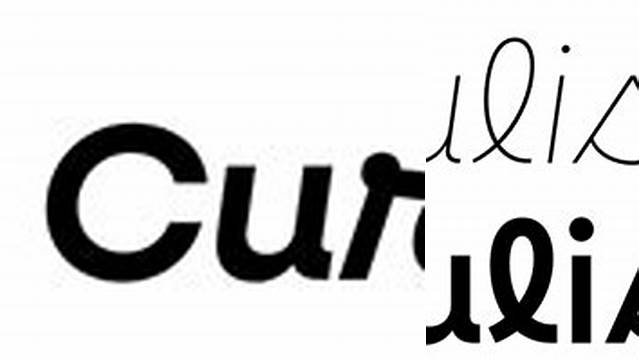
Hey guys! Ever stumbled upon a font that just clicks? Neulis Cursive Medium is one of those fonts. It's elegant, readable, and perfect for a ton of different projects. Finding the perfect font can sometimes feel like searching for a needle in a haystack, but fear not! This guide is all about helping you get your hands on Neulis Cursive Medium for free and how to make the most of it. Letâs dive in!
1. What is Neulis Cursive Medium Font?
So, what exactly is Neulis Cursive Medium? Well, itâs a beautifully designed font that falls into the cursive or script category. Think flowing lines, elegant curves, and a touch of sophistication. Unlike some other cursive fonts that can be overly elaborate and hard to read, Neulis Cursive Medium strikes a perfect balance. Itâs legible enough to use in body text while still retaining that distinctive cursive flair. This makes it super versatile for various applications, from branding and logos to invitations and digital designs. Itâs a font that adds a touch of class without being stuffy or pretentious. Imagine your name beautifully scripted on a wedding invitation or a logo that exudes elegance and professionalism â thatâs the power of Neulis Cursive Medium!
2. Key Features of Neulis Cursive Medium
Let's break down what makes Neulis Cursive Medium such a fantastic font choice. First off, its legibility is a major win. Some cursive fonts can be so swirly and intricate that they become a headache to read, especially in longer texts. But Neulis Cursive Medium maintains a clear, flowing structure thatâs easy on the eyes. Then thereâs its elegance. The curves and strokes are carefully crafted to give a sophisticated and polished look, perfect for projects where you want to convey a sense of quality and refinement. The âMediumâ weight of the font is also key. Itâs not too thin that it disappears, and itâs not too bold that it overwhelms. This balance makes it incredibly versatile for various applications. Plus, the font often includes a range of glyphs and ligatures, adding extra flair and customization options to your design work. These features combined make Neulis Cursive Medium a standout choice for designers and creatives alike.
9. Best Design Projects for Neulis Cursive Medium
So, what kind of projects really shine with Neulis Cursive Medium? This font is a versatile gem, but it truly excels in certain areas. If you're working on wedding invitations or other formal event stationery, Neulis Cursive Medium is a natural fit. Its elegance and flowing script add a touch of sophistication that's perfect for these occasions. It's also a fantastic choice for branding projects, especially for businesses that want to convey a sense of luxury, creativity, or personal touch. Think boutiques, salons, photographers, or even handmade goods businesses. Neulis Cursive Medium can make a logo or brand name look instantly more polished and memorable. Donât forget about social media graphics! Using this font for quotes, announcements, or even just adding text overlays to your images can really elevate your visual content. It can also work beautifully in website headers and banners, creating a welcoming and stylish first impression. And letâs not overlook personalized gifts and craft projects. Imagine a custom mug, a framed quote, or a handmade card featuring Neulis Cursive Medium â instant heartfelt charm!